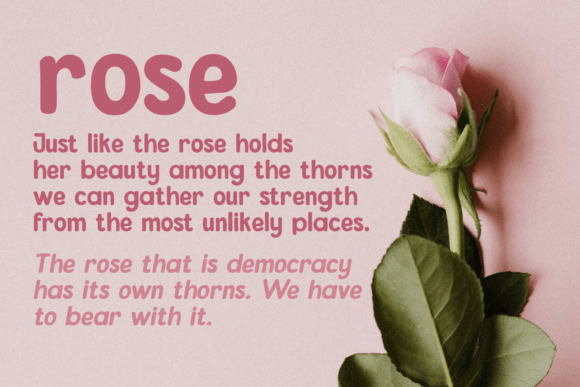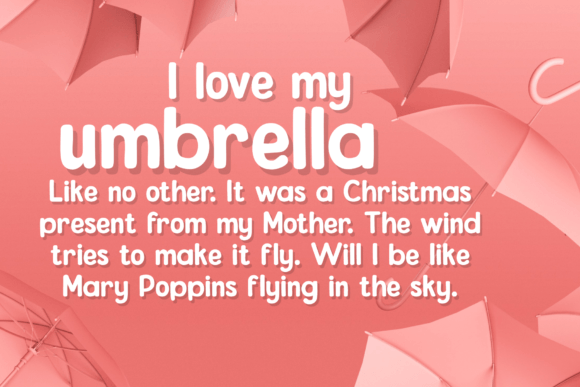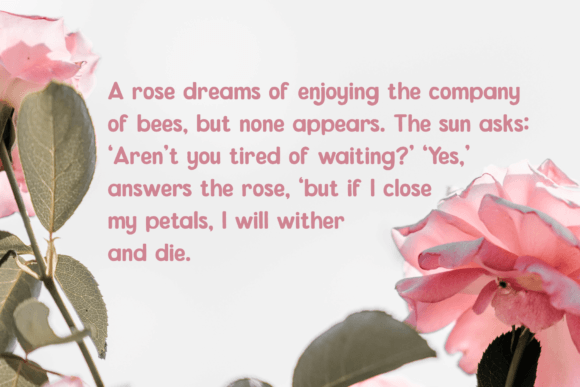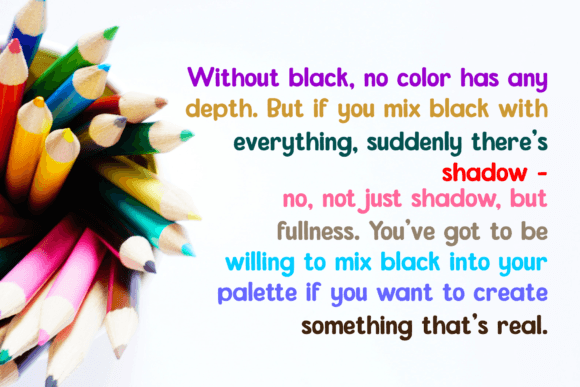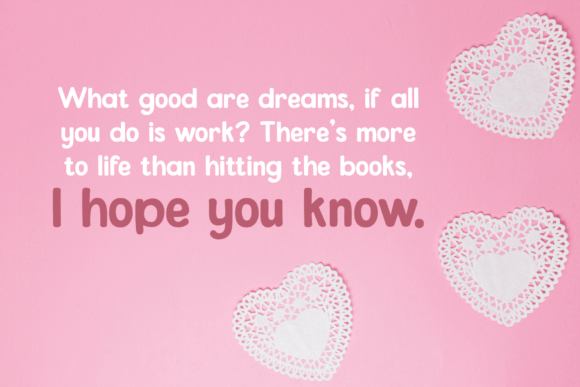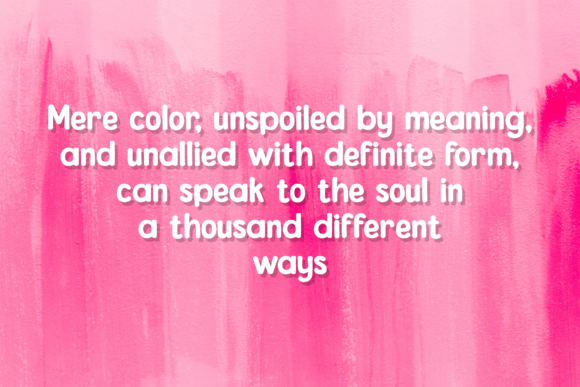
Introduction to Nuzera Font
Nuzera was made for text display purposes inspired by the handwritten font.
You can easily create a simple, clean, cool logo, branding, and promotion with this font Nuzera brings a modern and strong impression to your design making this font suitable as the main text/header text on a website or layout design.
Nuzera Font offers exceptional quality and versatility, making it a valuable addition to your design toolkit. Whether you’re creating for personal projects or commercial use, Nuzera Font delivers professional results.